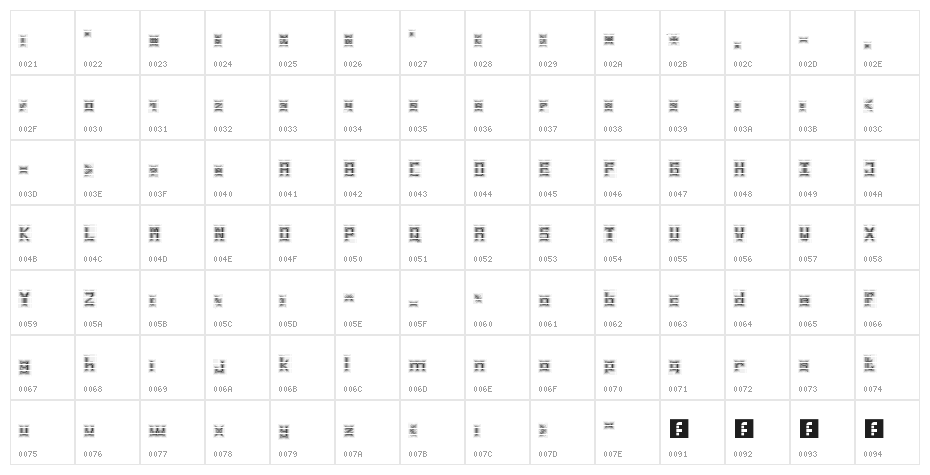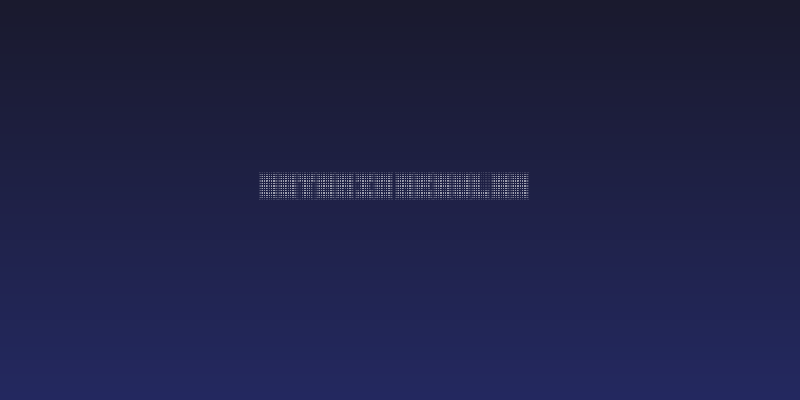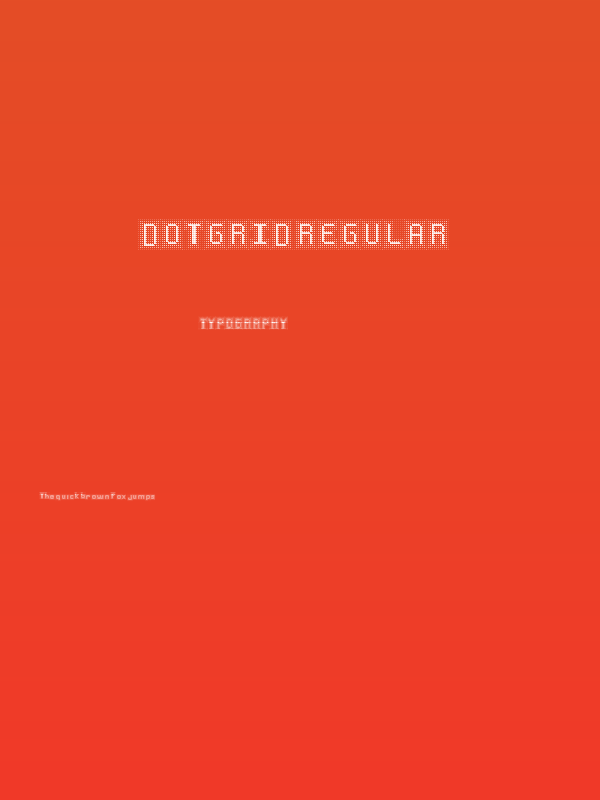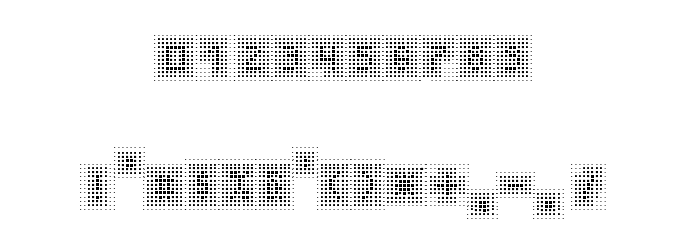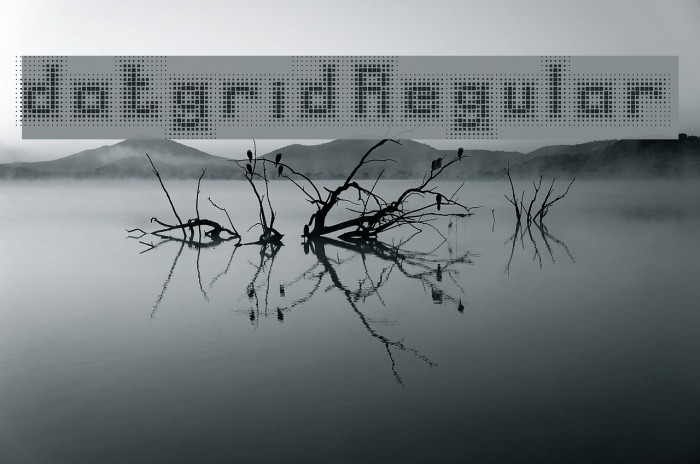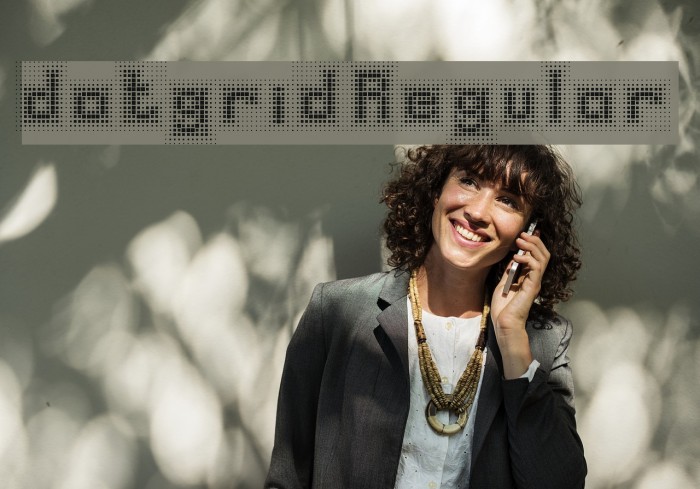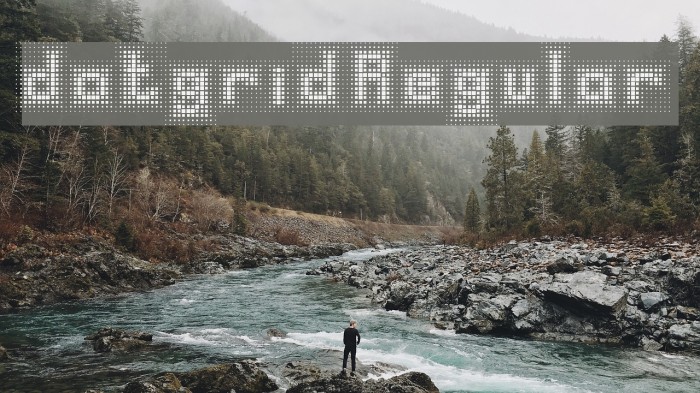
dotgrid Regular Font
dotgrid Regular Description
This font features a unique dot matrix style, reminiscent of old digital displays and dot matrix printers. Each character is composed of a grid of dots, creating a pixelated effect that is both retro and modern. The uppercase and lowercase letters maintain a consistent height, with rounded edges formed by the dots. Numbers and special characters follow the same pattern, ensuring uniformity across all glyphs. The design is clean and geometric, making it suitable for projects that require a digital or technological aesthetic.
| Proposed Projects | Ideal for digital-themed designs, tech-related branding, retro video game graphics, and any project needing a vintage digital look. |